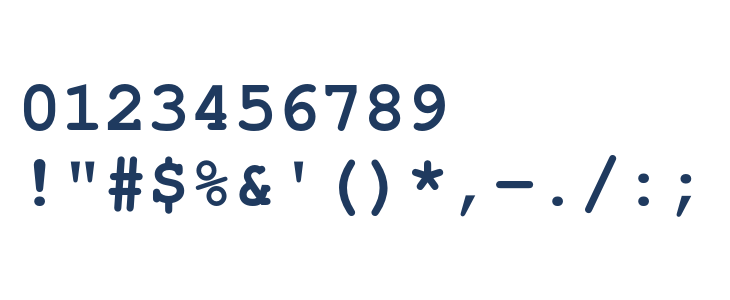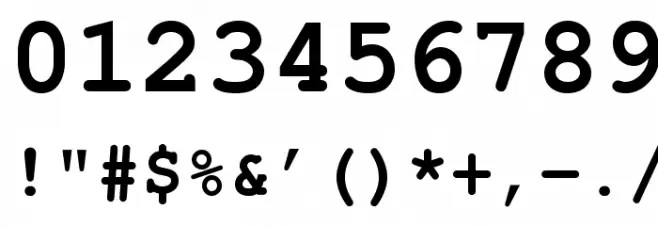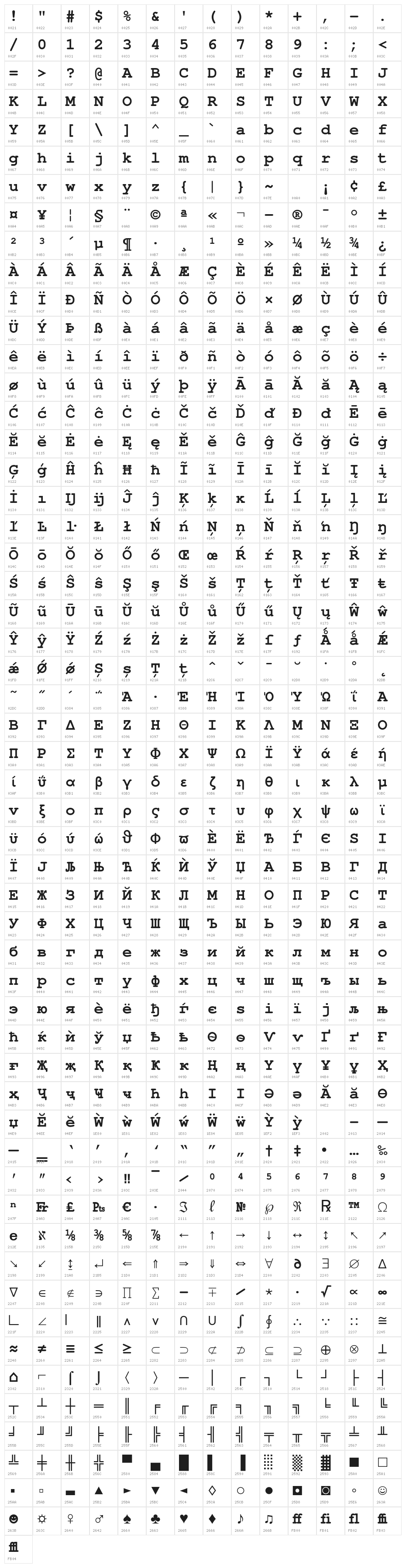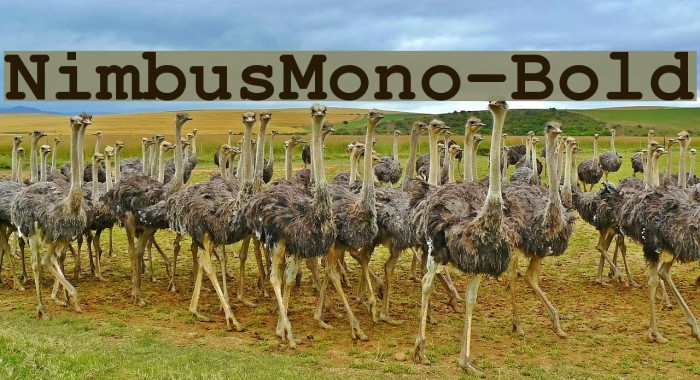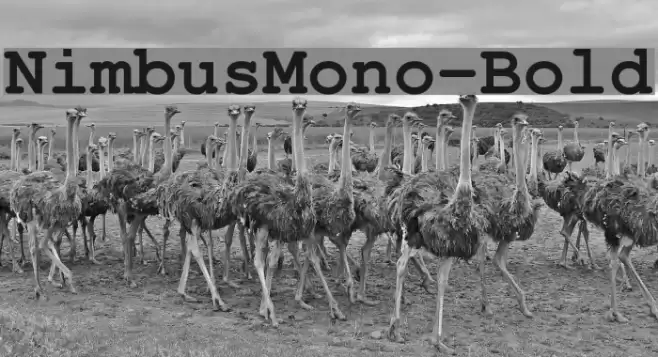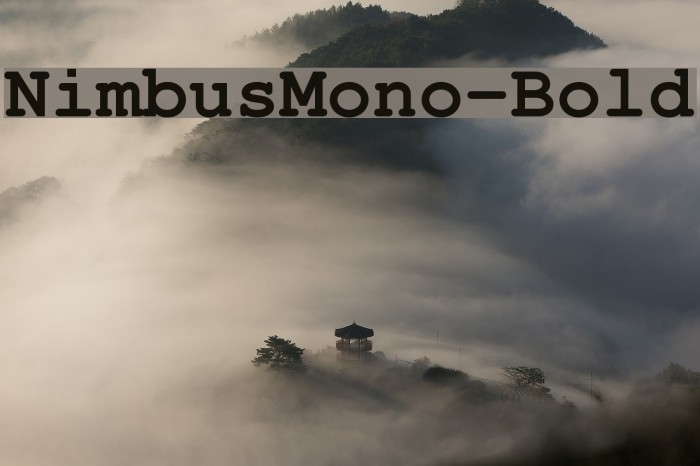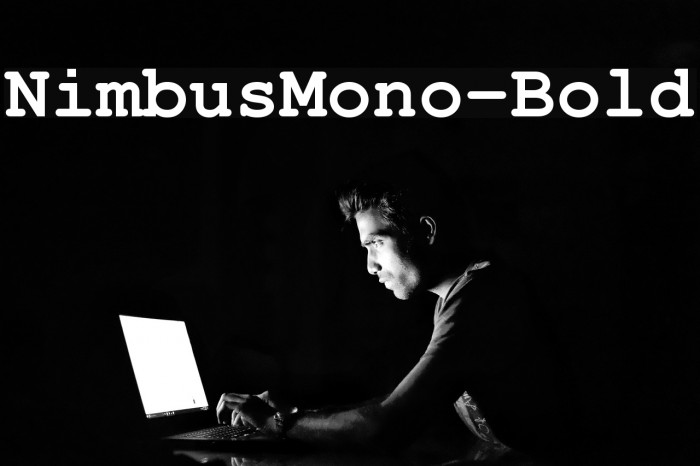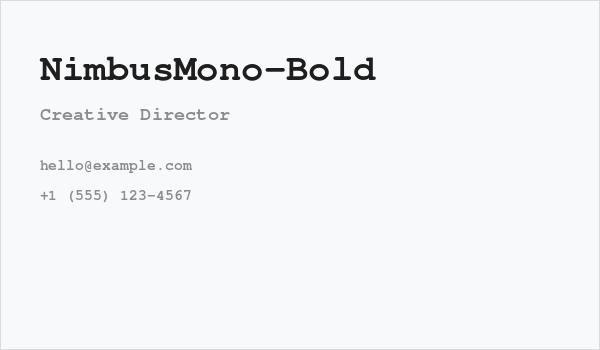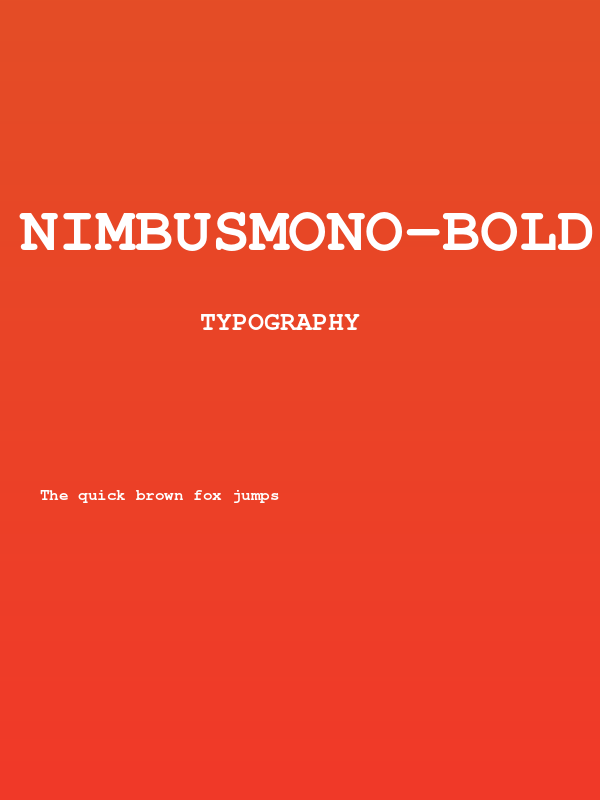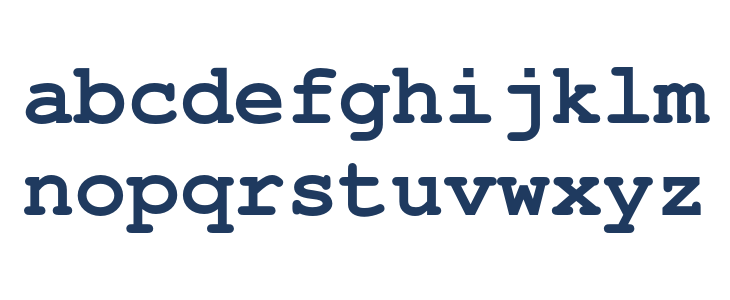
NimbusMono-Bold Font
NimbusMono-Bold Description
This typeface is a bold, monospaced font characterized by its uniform character width and slab serif style. Each letter and number occupies the same amount of horizontal space, making it ideal for coding and tabular data. The bold weight gives it a strong presence, while the slab serifs add a touch of classic design. The font maintains a consistent stroke width, providing a low contrast appearance. Its clean and structured look makes it suitable for both digital and print media where clarity and precision are required.
| Use Case | Coding, Technical documentation, Tabular data |
| Proposed Projects | Ideal for coding environments, technical documentation, tabular data, and retro-themed designs. |